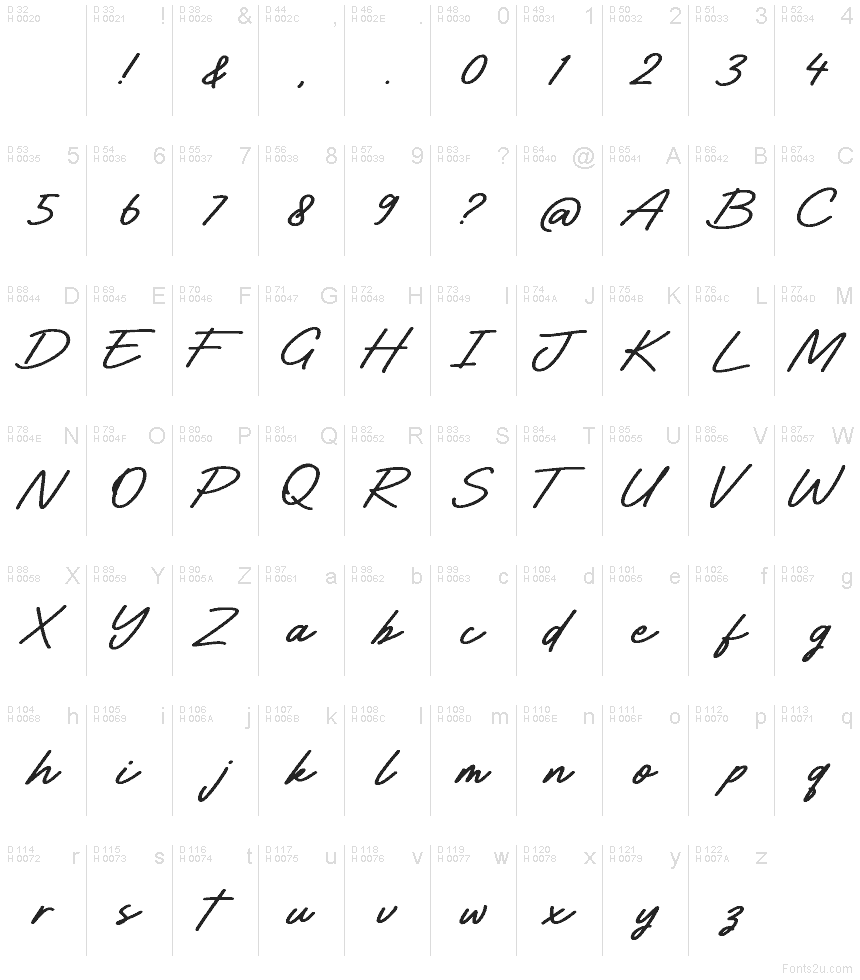
Pinklatte
Pinklatte font by Typebae Foundry is a handwritten signature font that combines elegance with casual, fluid movement. A contemporary beauty for endless design applications, it holds a stylish letter design suitable for both physical and digital projects.
Use the free handwritten font to write every last detail on wedding invitation cards. Create birthday cards and posters, don fashionable apparel items and pins by adding it with special designs to each. Or simply add a vibrant personality to branding designs which will easily come to life with Pinklatte.